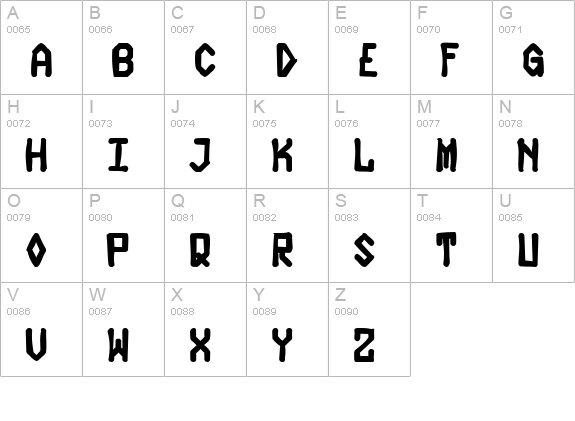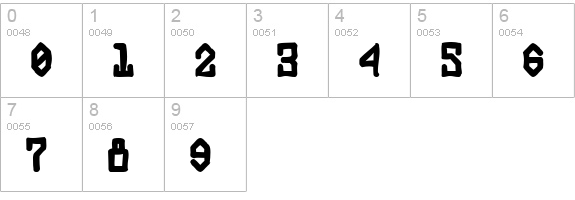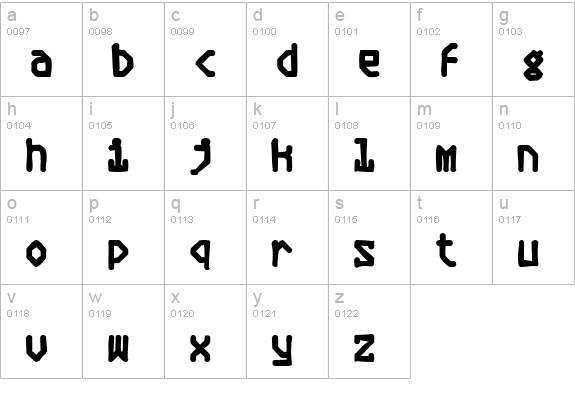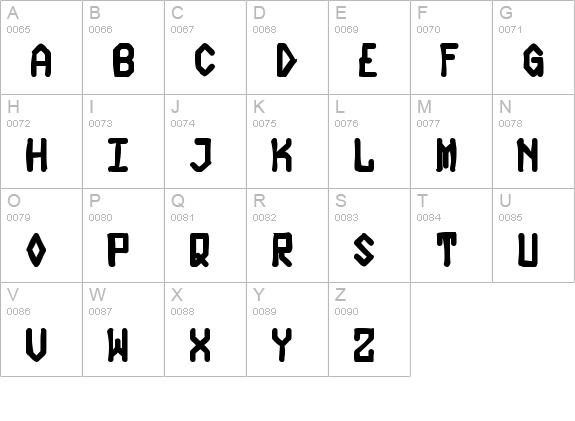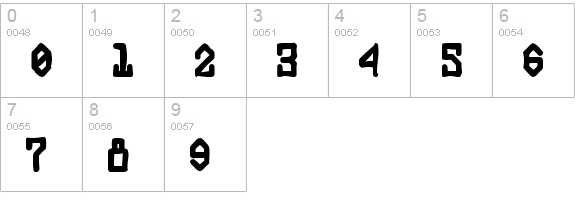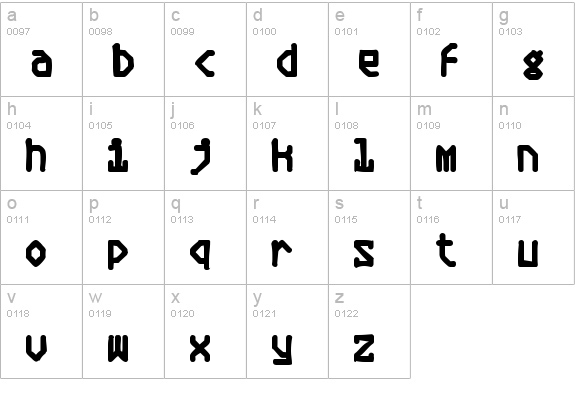
Plasmatic Ink font is a mesmerizing and dynamic typeface that exudes a sense of energy and modernity. With its fluid lines and bold strokes, this font is perfect for making a statement in any design project. The unique blend of futuristic elements and artistic flair makes Plasmatic Ink font stand out from the crowd. What sets Plasmatic Ink font apart is not only its striking appearance but also its versatility. Whether you're designing a poster, logo, or website, this font will add a touch of sophistication and originality to your work. Its sleek and contemporary look makes it ideal for projects that require a touch of innovation and style. The best part? Plasmatic Ink font is completely free to download at FontsMarket.com. So why wait? Enhance your designs with this eye-catching font today and let your creativity shine!